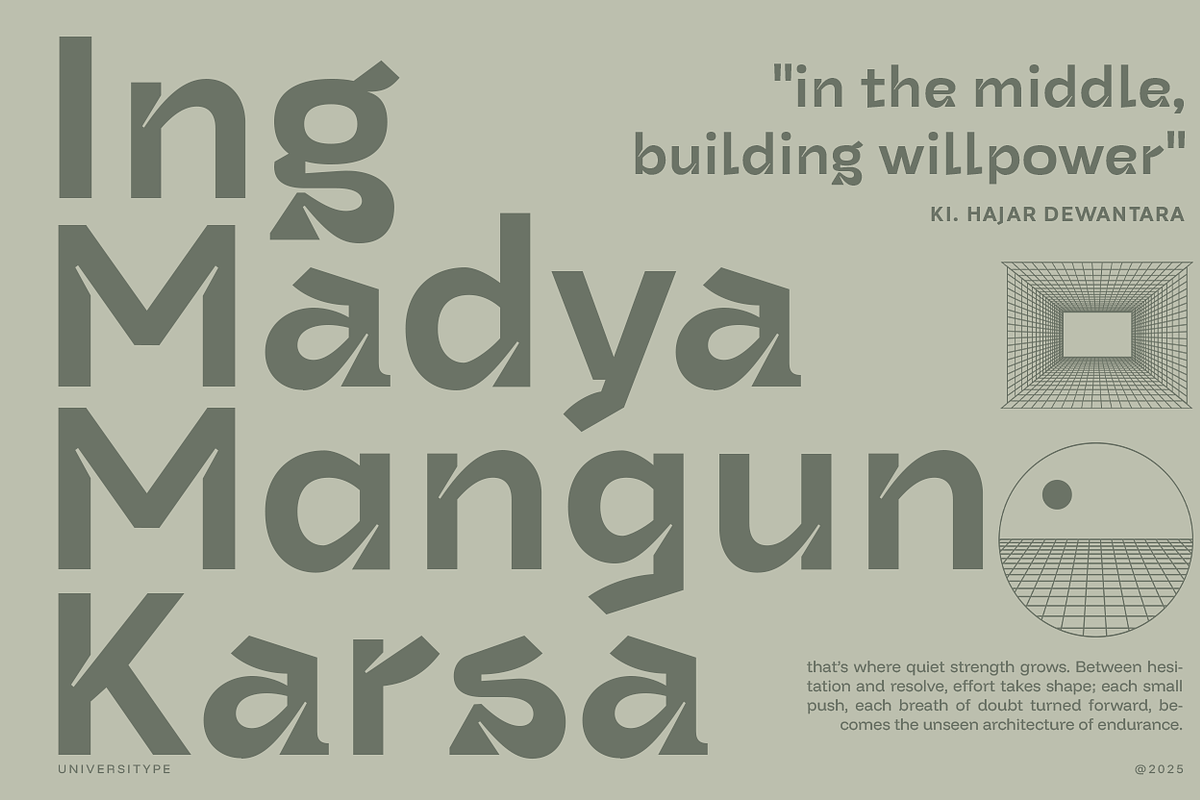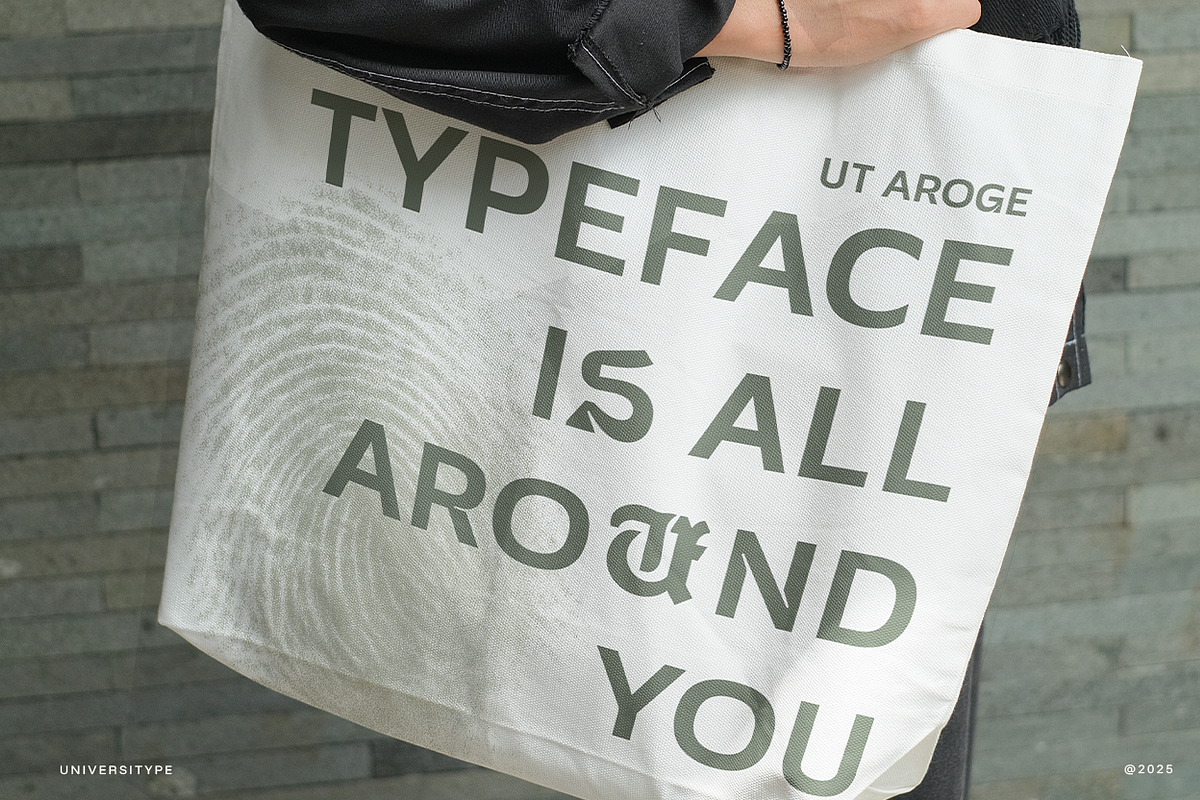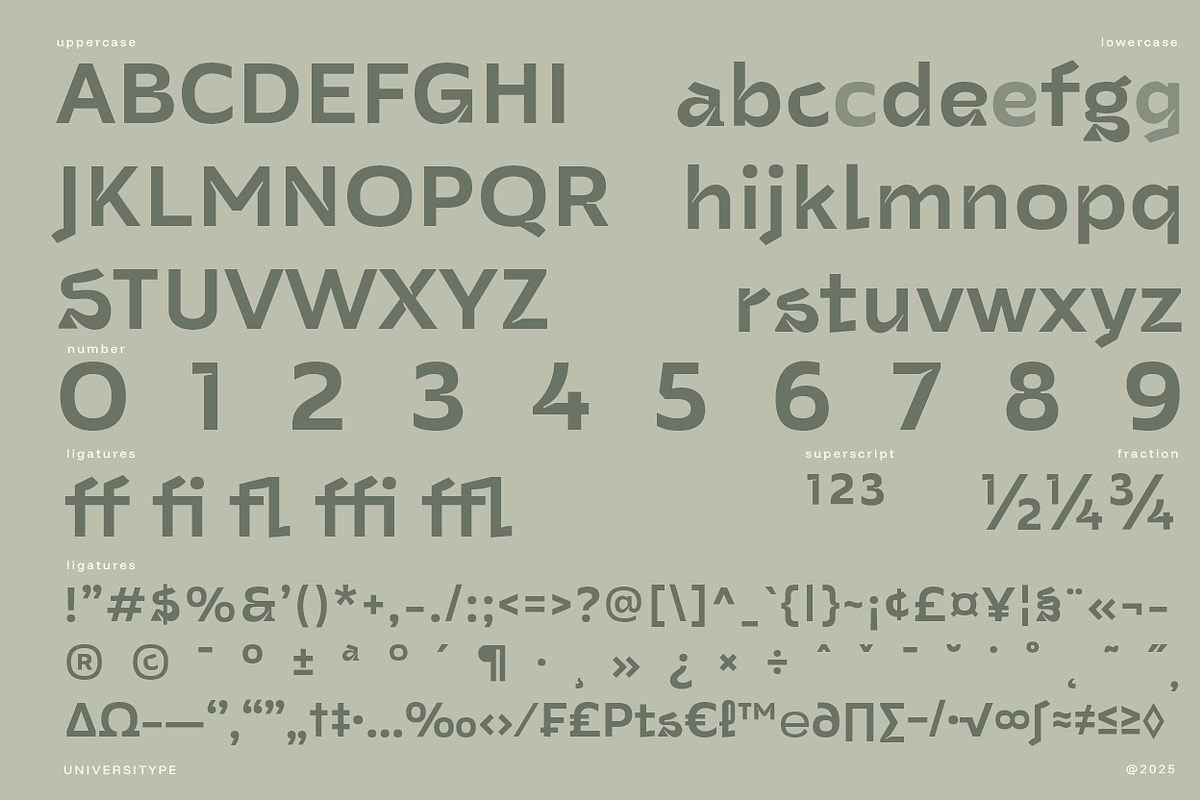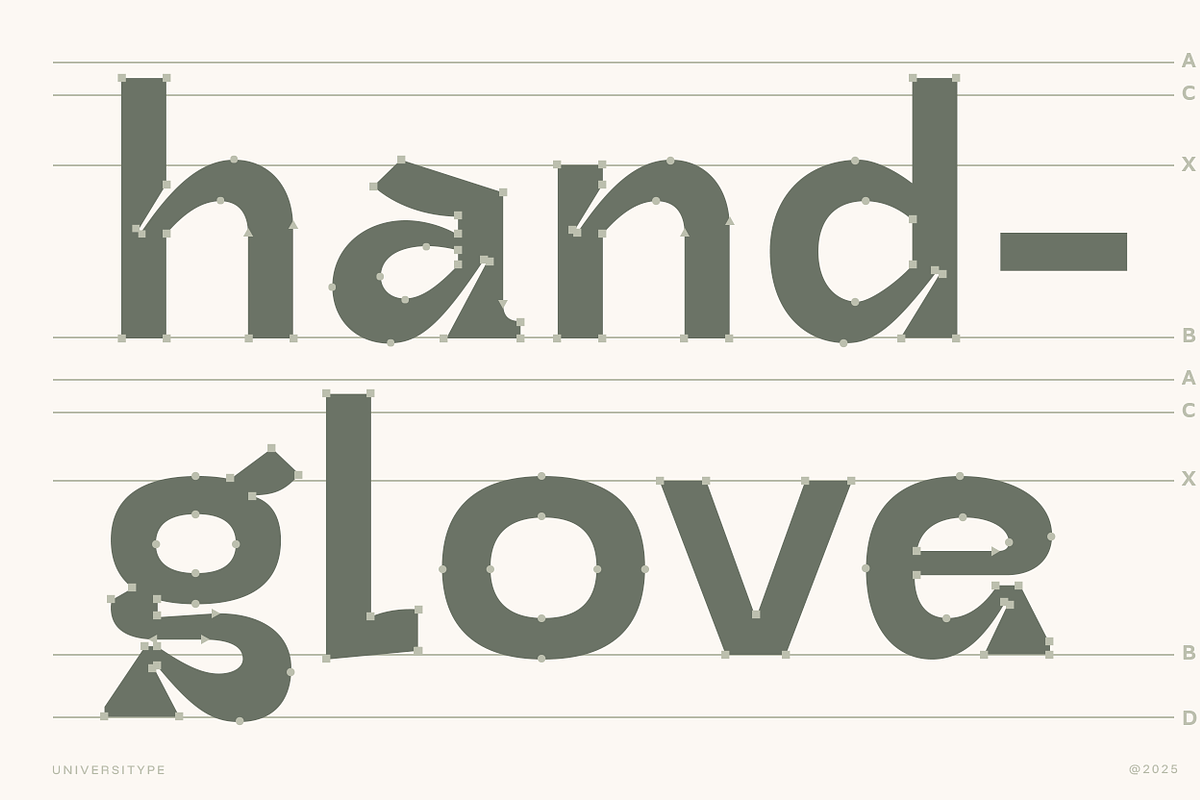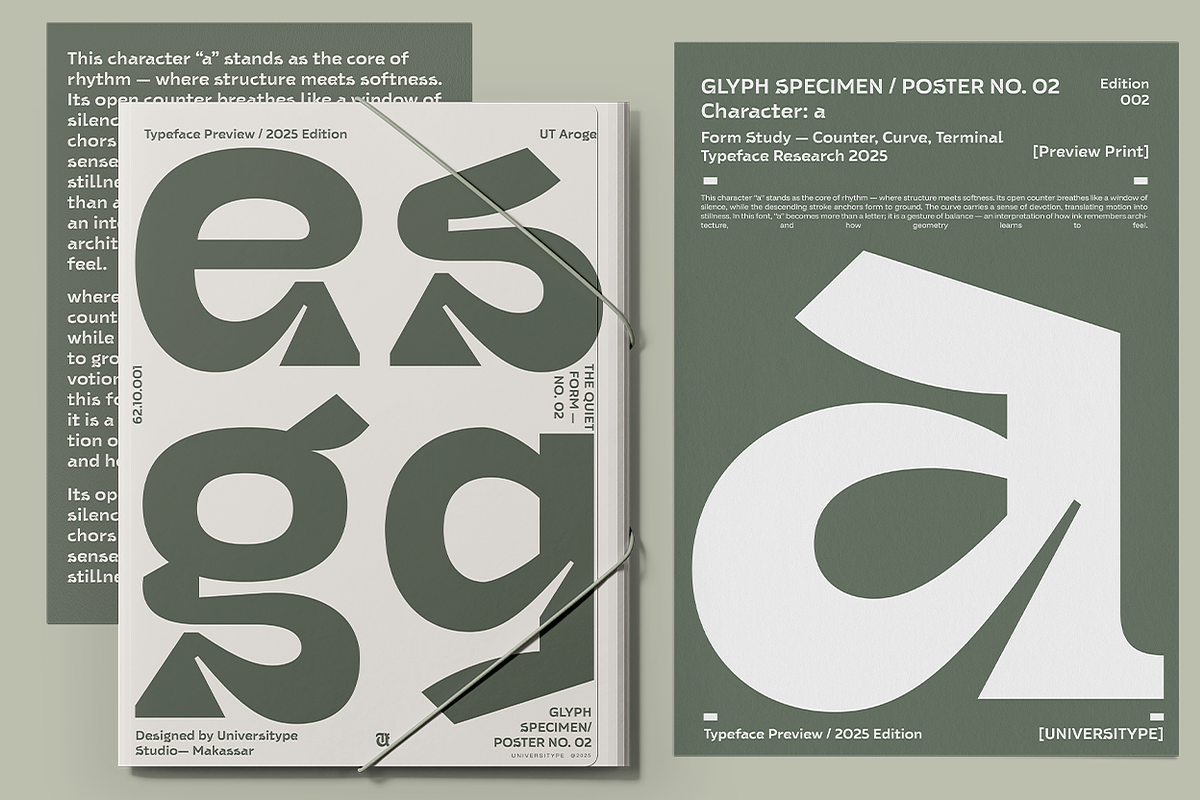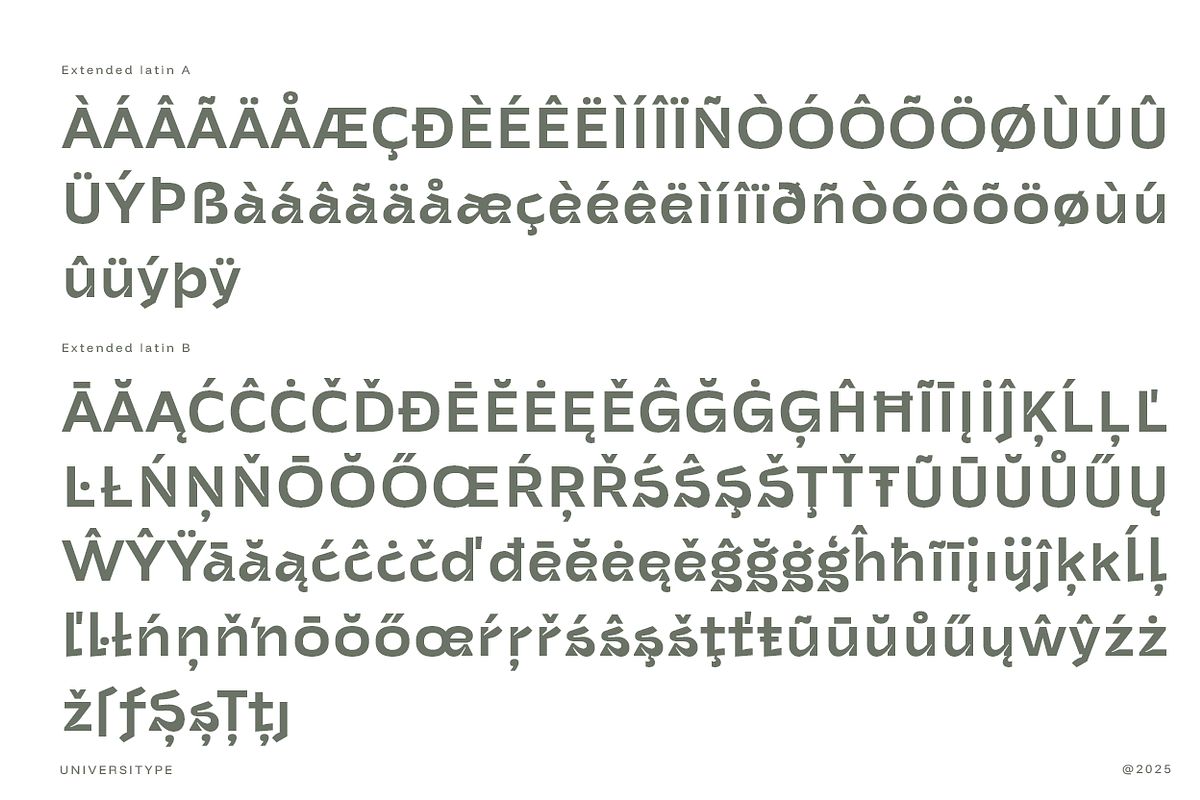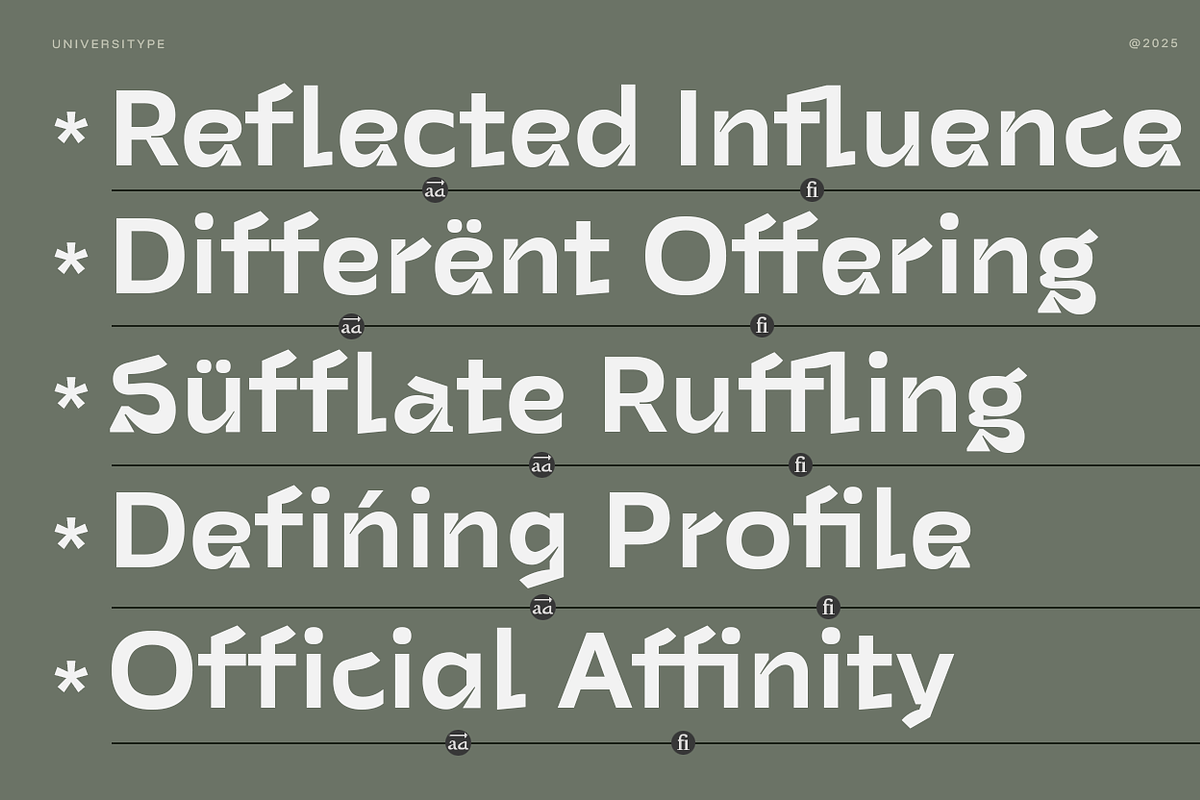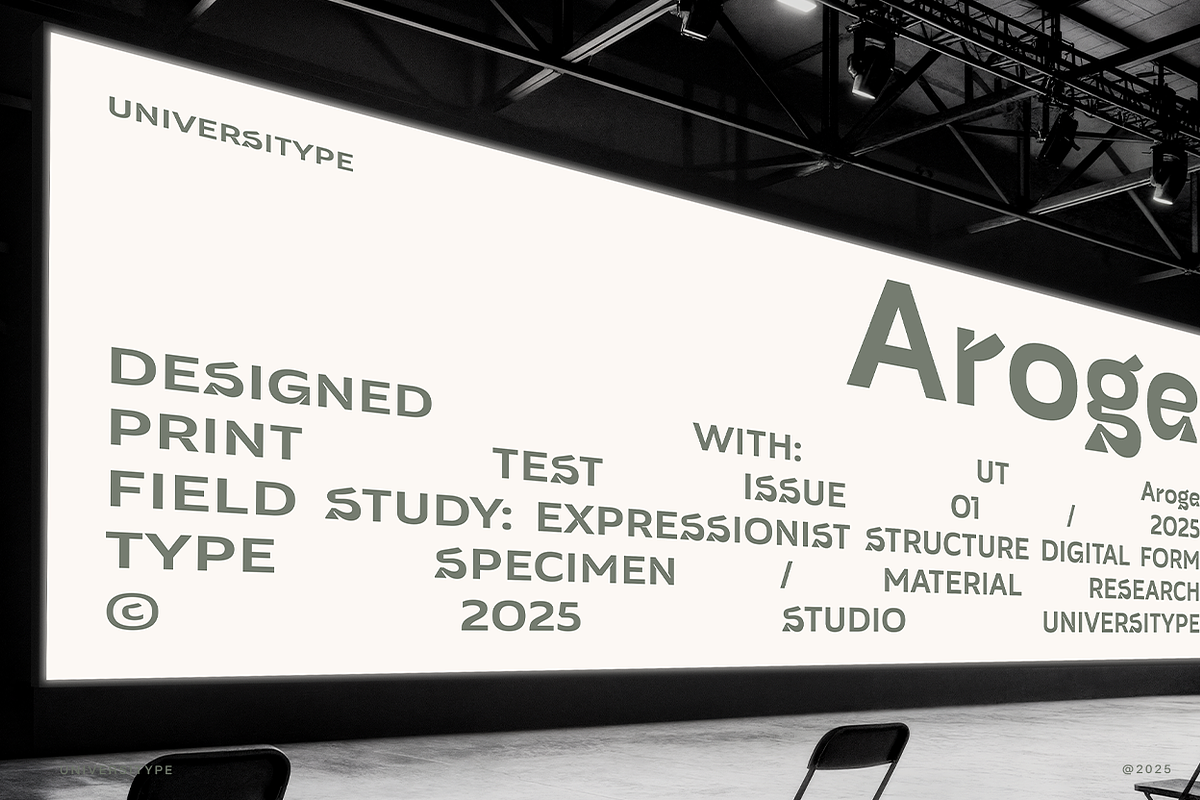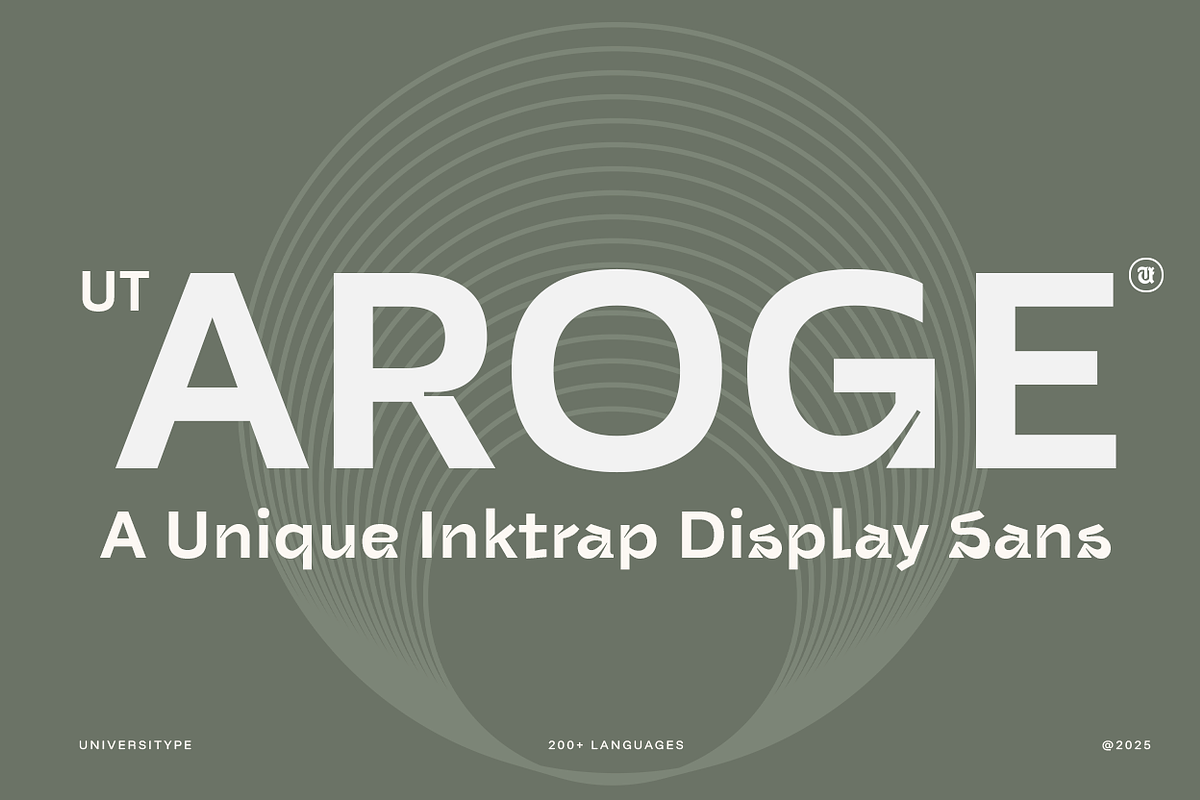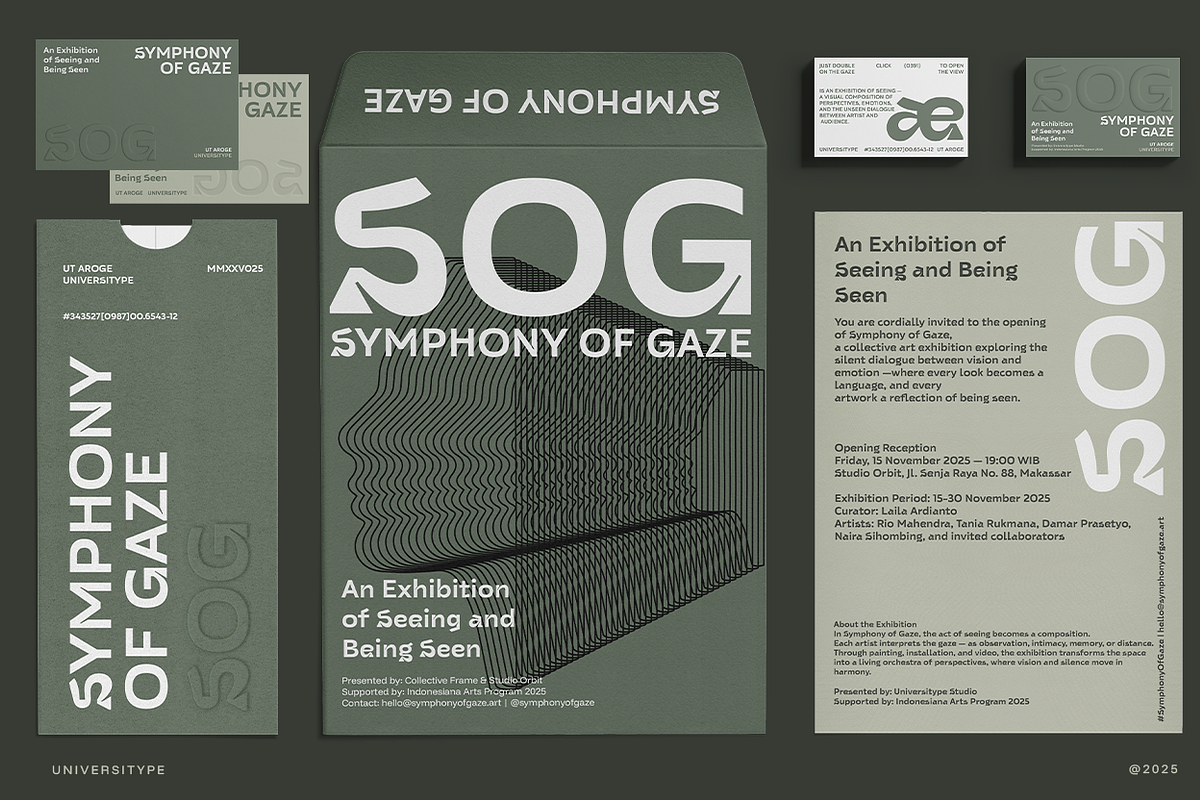
UT Aroge - An Inktrap Display Sans
UT Aroge takes cues from the quiet tension found in stillness—steady lines interrupted by sharp turns, like motion frozen at the perfect moment. The ink traps shape the rhythm, almost like small cuts guiding the eye. It also nods to a sense of endurance and balance, where structure meets gentler curves. The design grows from that contrast: movement held inside a calm frame.
- 400+ glyphs
- 30+ stylistic alternates for expressive customization
- Strong ink-trap detailing, giving a architectural yet playful vibe
- Distinctive terminals for standout headlines
- Smooth spacing for readable display compositions
- Support for 200+ languages
- Works beautifully in both large and mid-size display settings